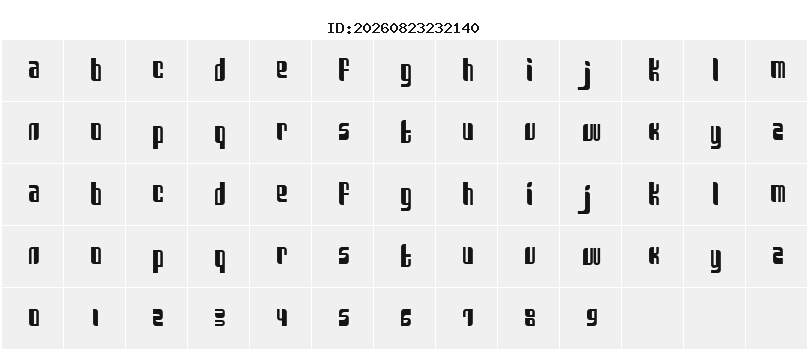
Sanka Preview
About Sanka.ttf
Sanka.ttf is a modern, elegant sans-serif font designed for ultimate readability and visual harmony. Perfect for branding, headlines, web design, and print materials.